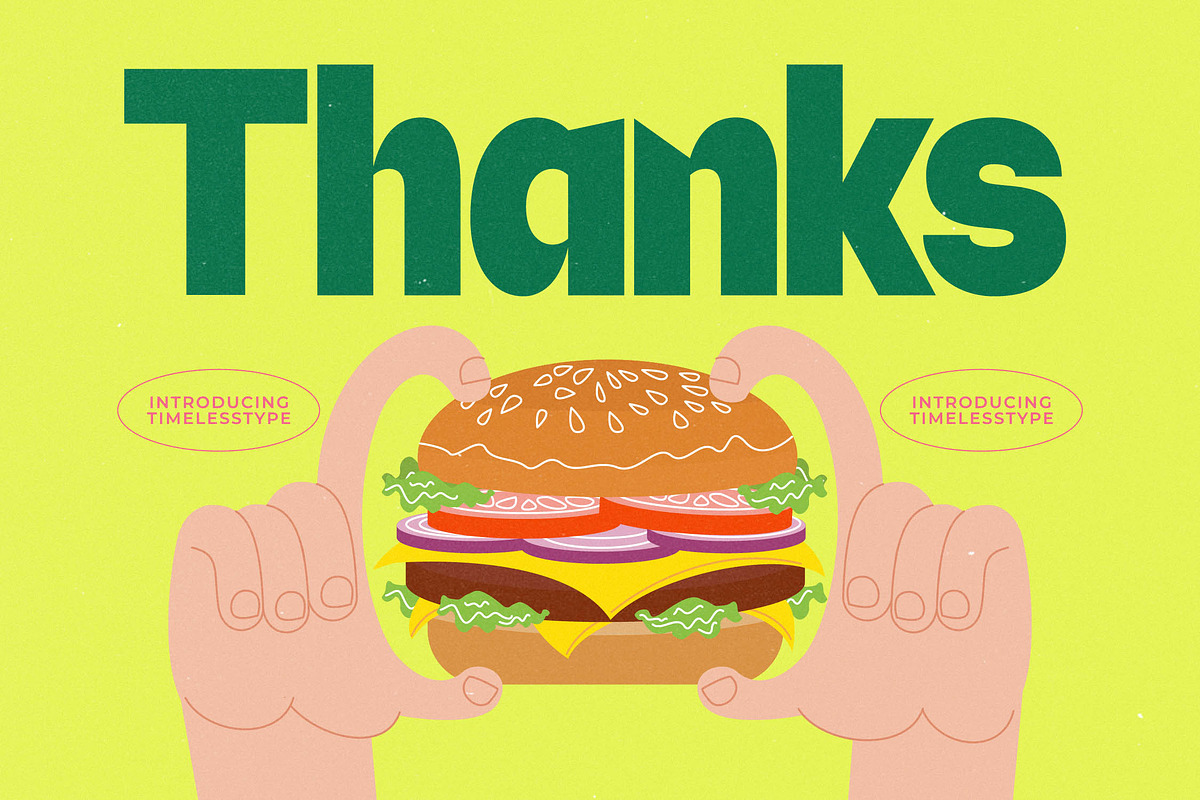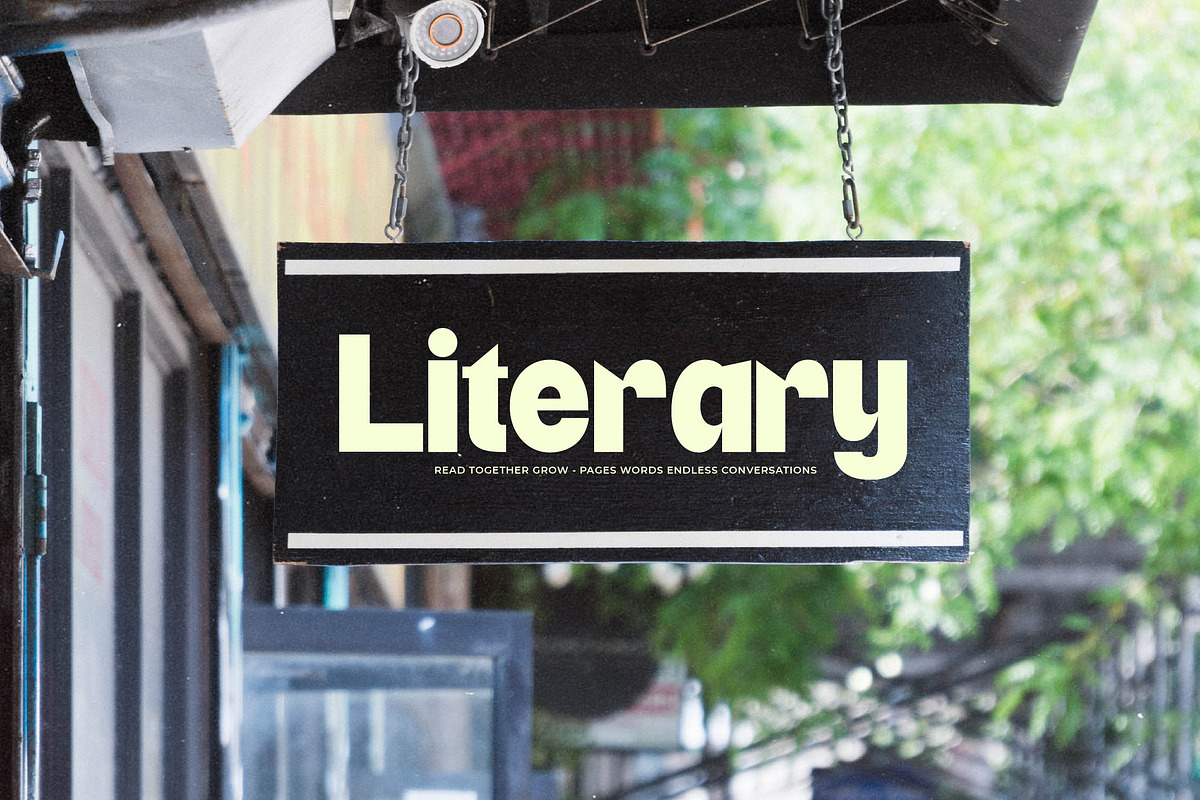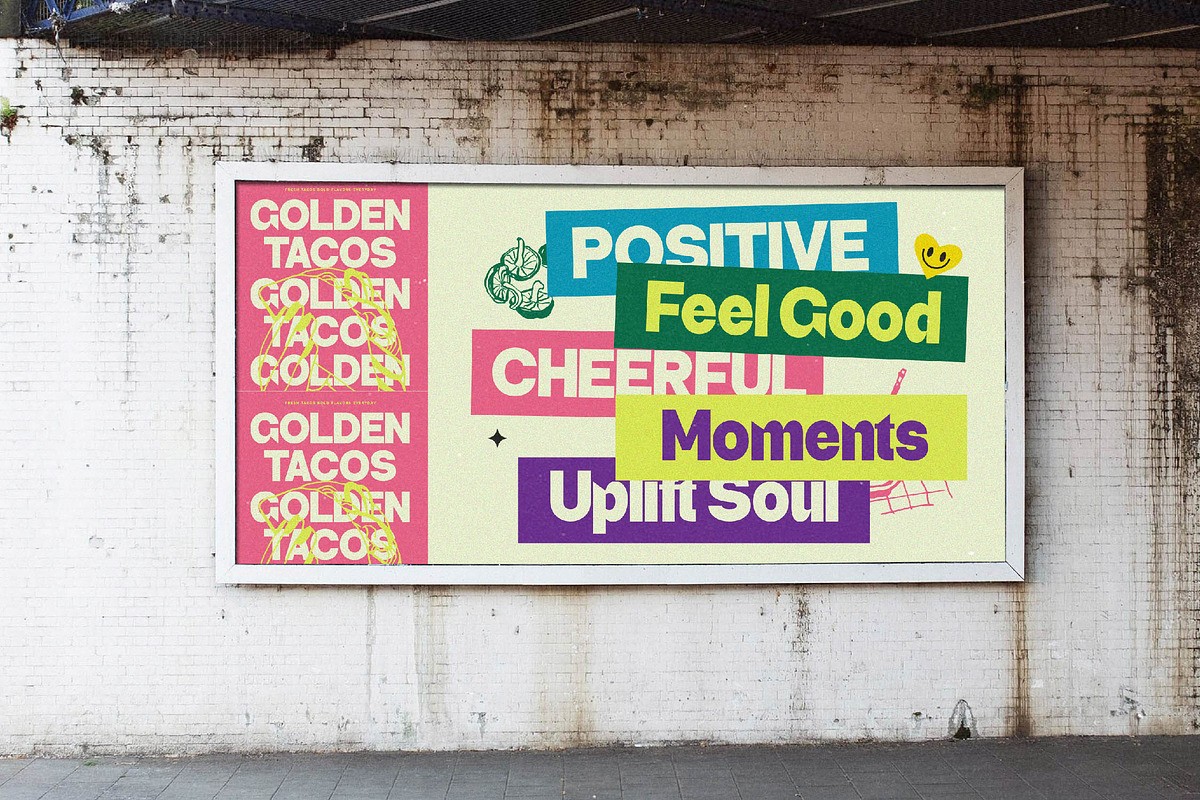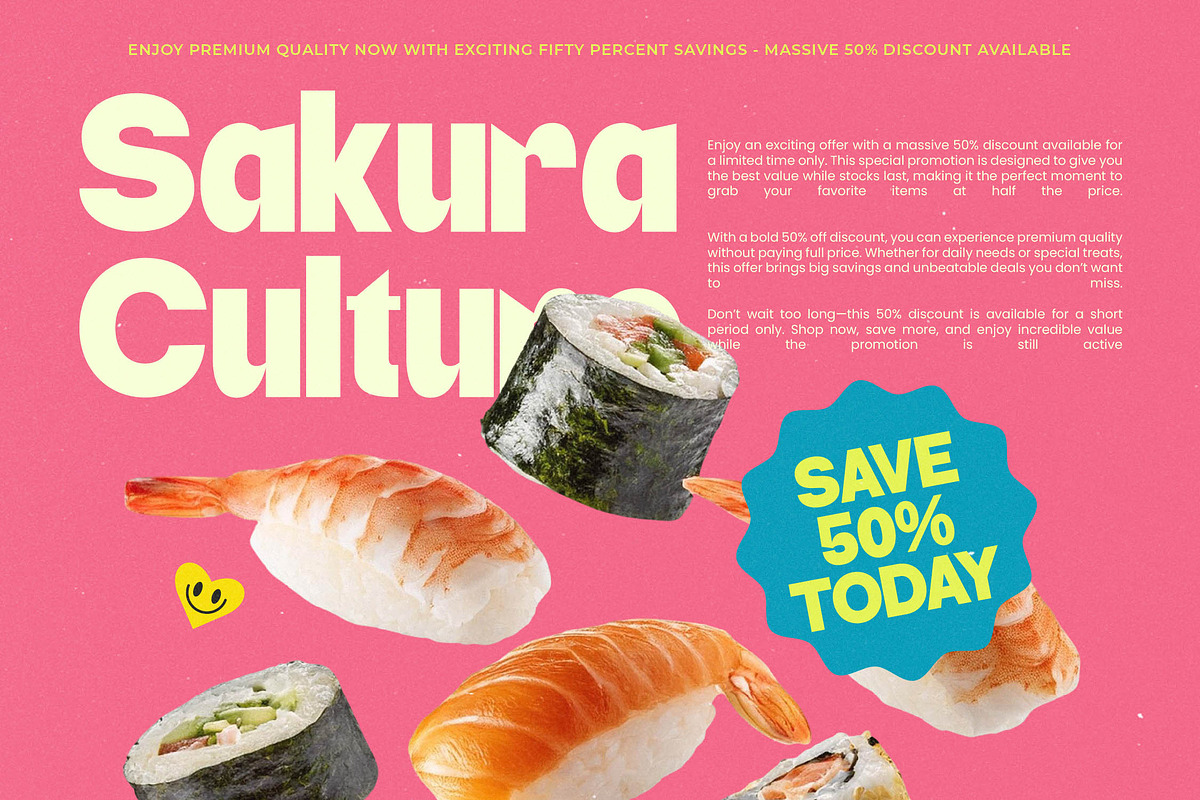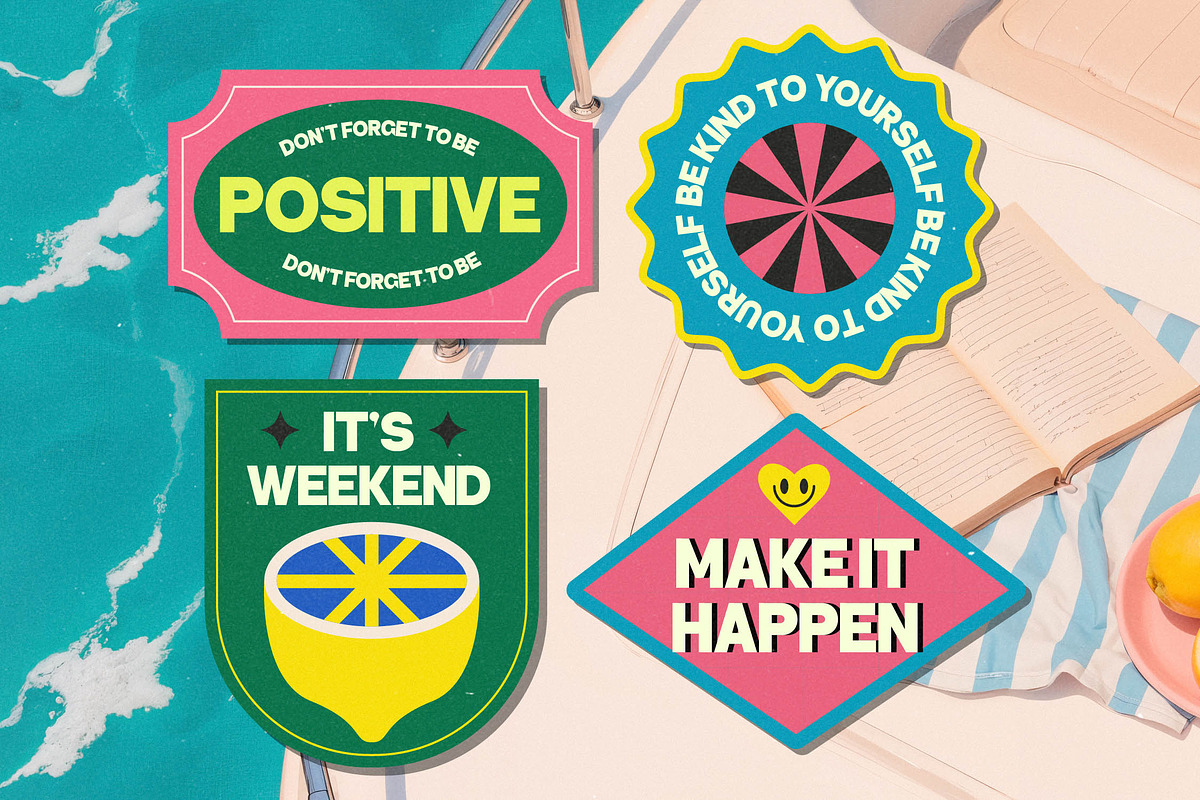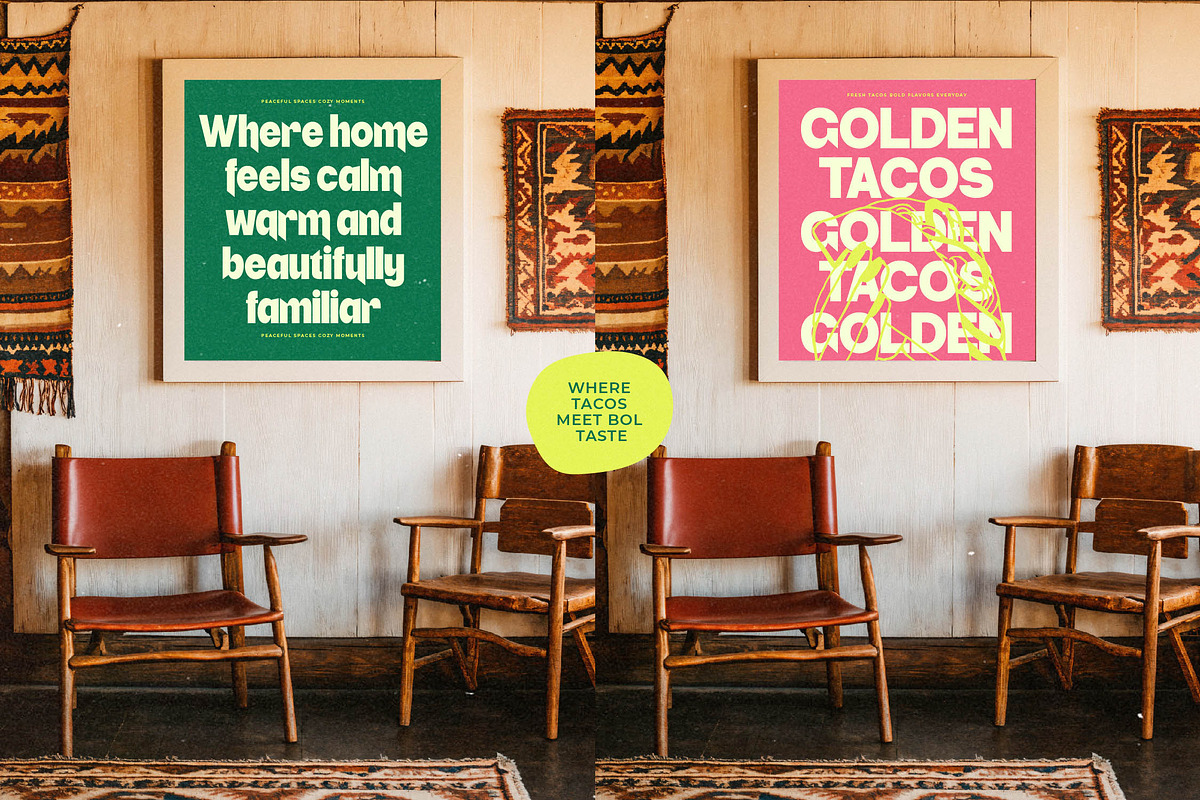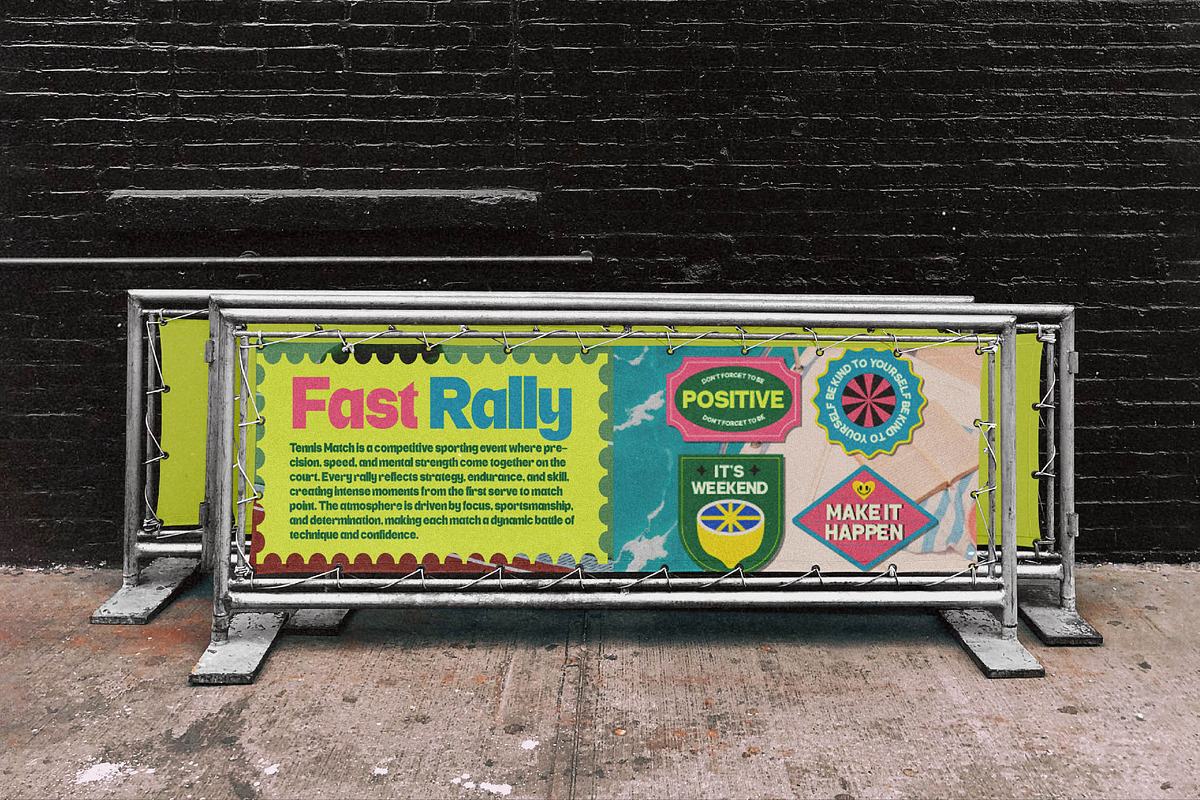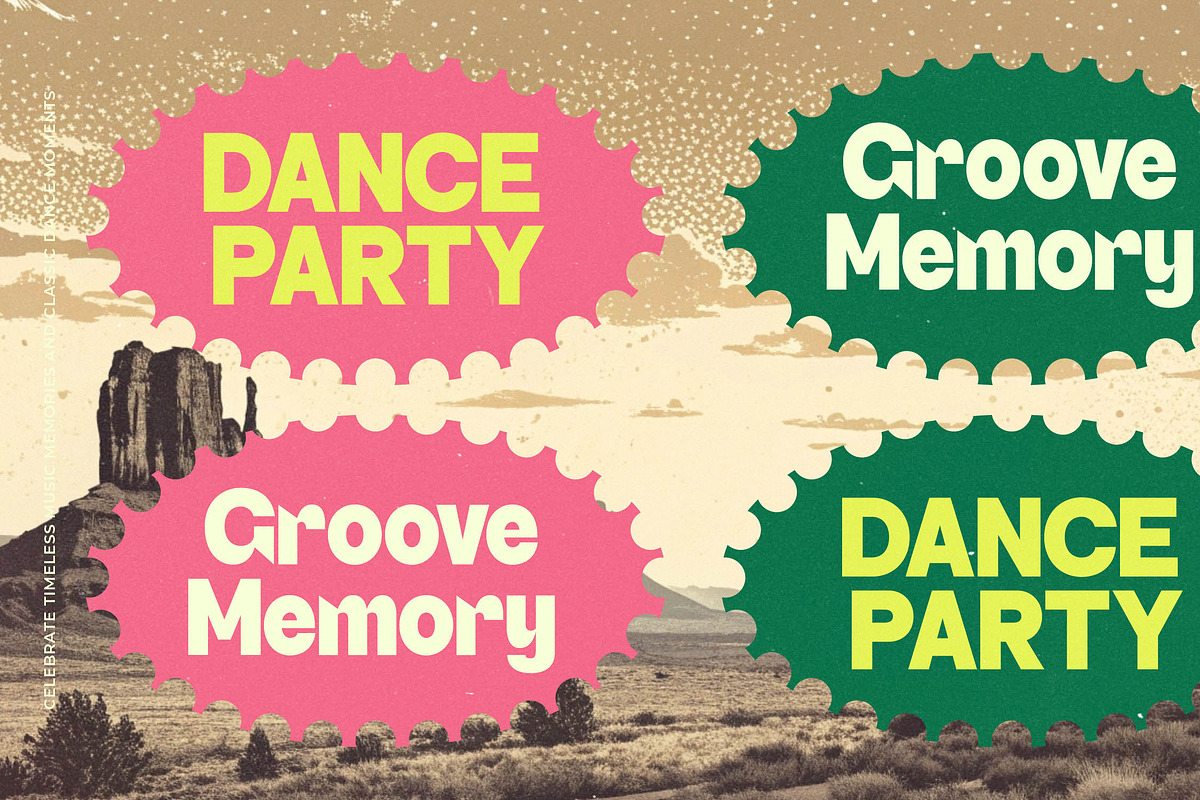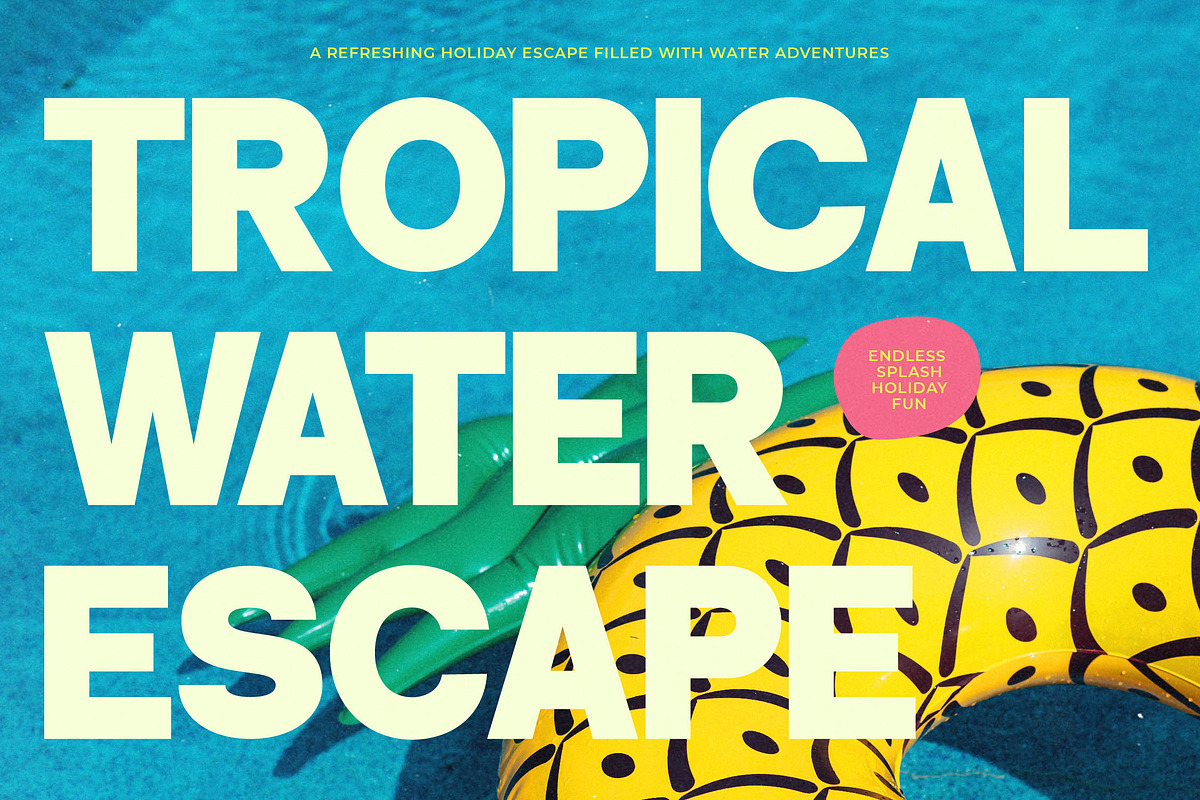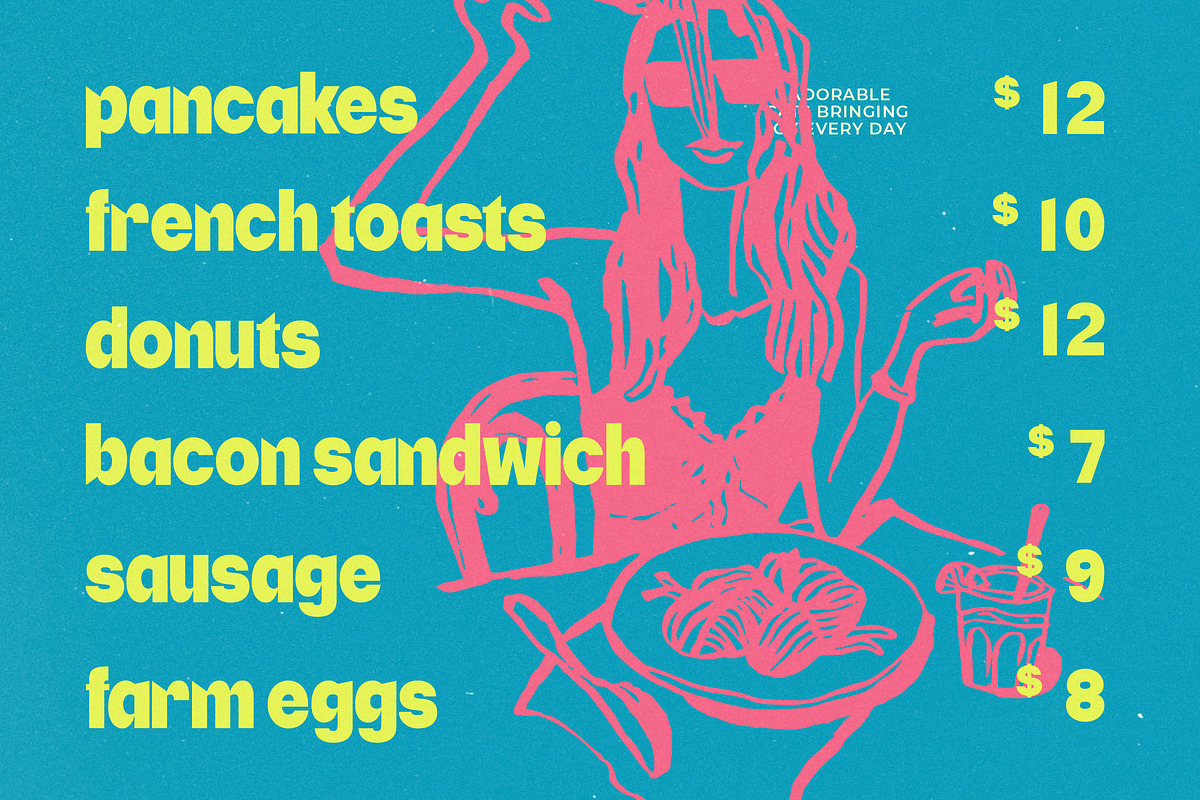
EightStar Modern Playful Display
EightStar is the ultimate statement piece for designers who want to inject a burst of joyful energy and bold confidence into every project. This typeface doesn't just sit on the page; it dances with a vibrant, playful spirit that captures attention instantly through its thick strokes and unique silhouettes.
Drawing inspiration from the high-energy aesthetics of 90s pop culture and modern street food branding, this font captures the essence of a maximalist lifestyle. Its chunky strokes and unexpected curves evoke a sense of nostalgia blended perfectly with a fresh, contemporary edge that defines modern visual storytelling.
Engineered for maximum visibility, this modern display sans brings an undeniable branding impact to any layout it touches. It functions as a powerful editorial font that balances quirky charm with professional execution, making it the perfect choice for high-energy luxury typography concepts that refuse to be ignored in a crowded market.
Riding the wave of the current character-driven typography movement, EightStar aligns perfectly with the shift toward expressive and loud design. It stands out among editorial display fonts, offering a refreshing alternative to traditional minimalist designs by embracing bold shapes and the modern display trend.
This versatile powerhouse is ideal for creating a memorable logo design or establishing a cohesive visual identity for a disruptive branding project. From eye-catching food packaging and vibrant editorial spreads to unconventional fashion lookbooks and modern wedding stationery, it delivers a punch of personality.
The font is packed with creative potential, featuring a suite of unique ligatures and creative alternates that allow for custom-tailored layouts. With full multilingual support and a comprehensive range of international characters, your message will resonate across global markets without losing its distinct visual flair.
Ligatures and Alternative Style Stylistic Set